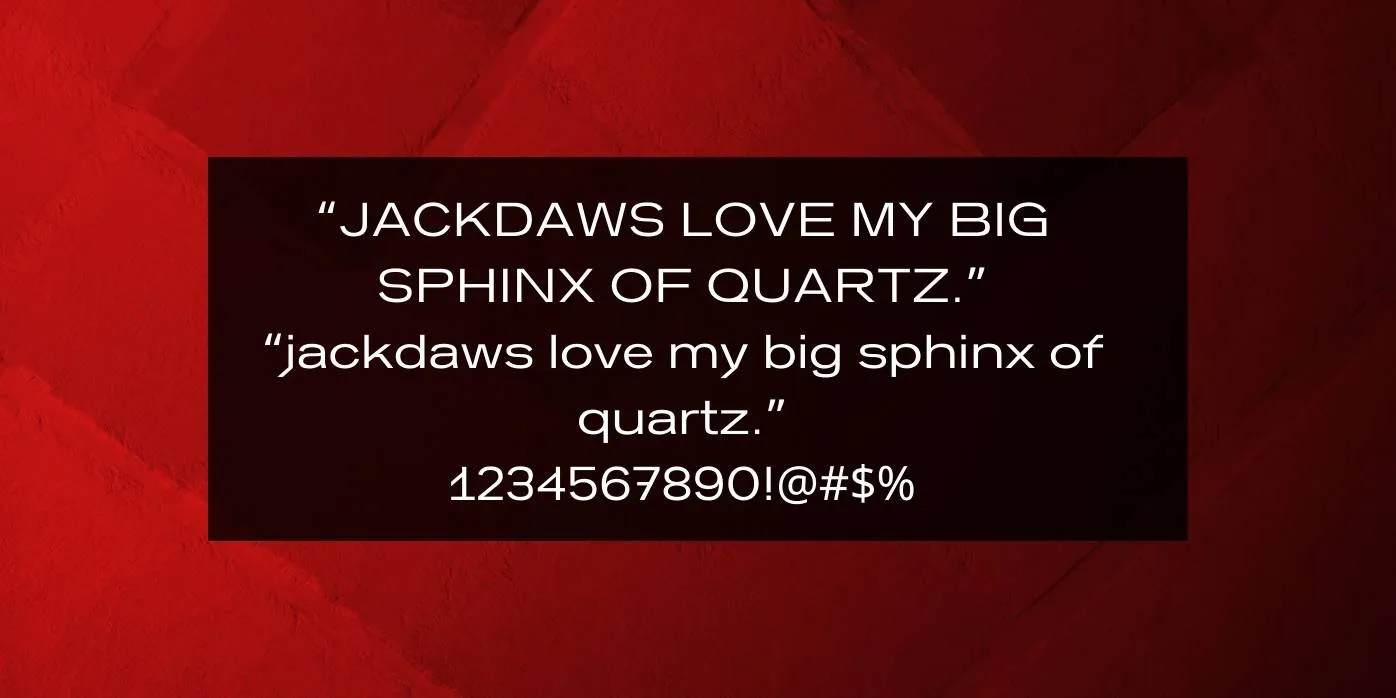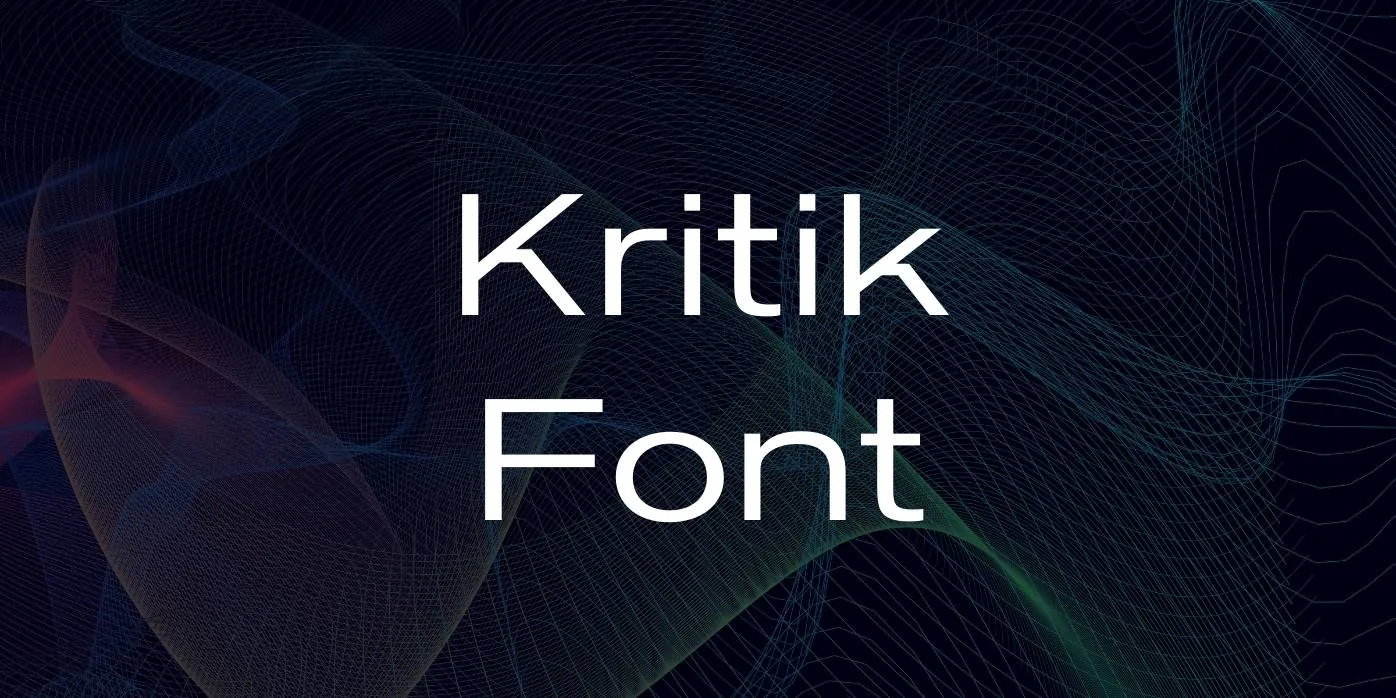
Kritik Font
Today, we are going to introduce Kritik Font which belongs to the sans serif family. Daniel Stuhlpfarrer is the creator of this family.  The main aim of the designer is to make a versatile family which is capable of performing in various display sizes. Kritik Font has 8 weights plus matching italics. The Kritik Sans supports Extended Latin, Cyrillic, and Greek character sets.
This sans serif typeface includes humanist features such as the slight slant on the different glyphs. This font also features a low x-height to give it a more modern feel. The overall tone of the Kritik Font is professional and clean. The generator tool of this typeface is well suitable for different designs.